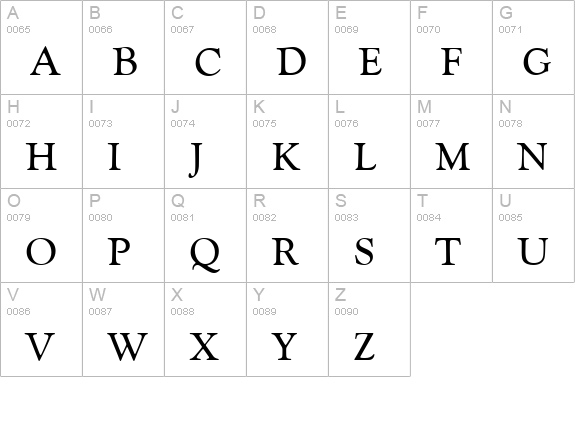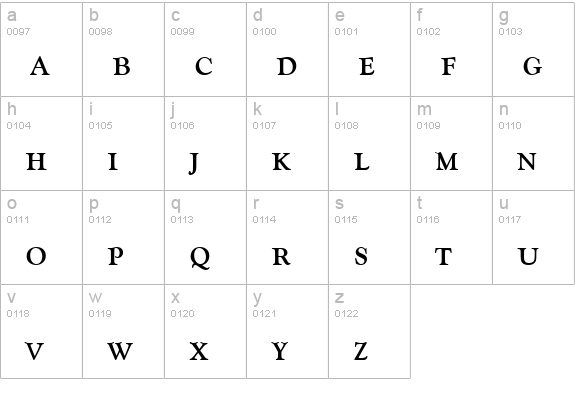
GoudyCatSCTReg Font Details
GoudyCatSCTReg is a charming and versatile font that exudes elegance and sophistication. Its timeless appeal and classic design make it a perfect choice for a wide range of projects, from branding to invitations to editorial design. The graceful curves and clean lines of GoudyCatSCTReg add a touch of refinement to any text, making it a standout choice for those seeking a polished and professional look. Best of all, GoudyCatSCTReg is available for free download at FontsMarket.com, making it easily accessible to anyone looking to elevate their typography game without breaking the bank. Whether you're a seasoned designer or a novice enthusiast, GoudyCatSCTReg is sure to become a go-to font in your collection, thanks to its timeless beauty and effortless versatility. Download GoudyCatSCTReg today and add a touch of sophistication to your next project!